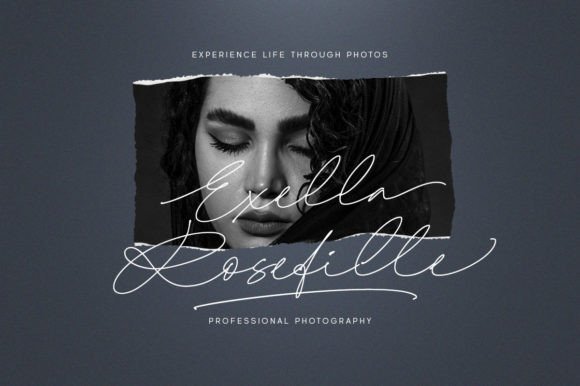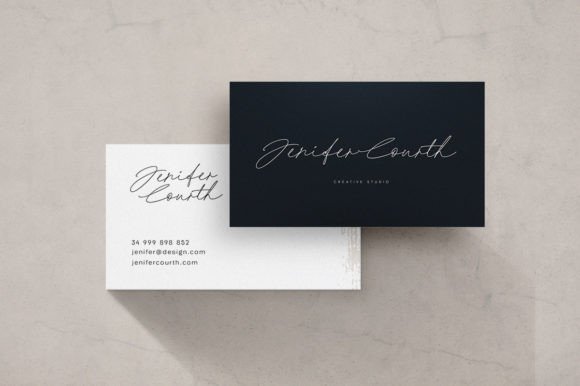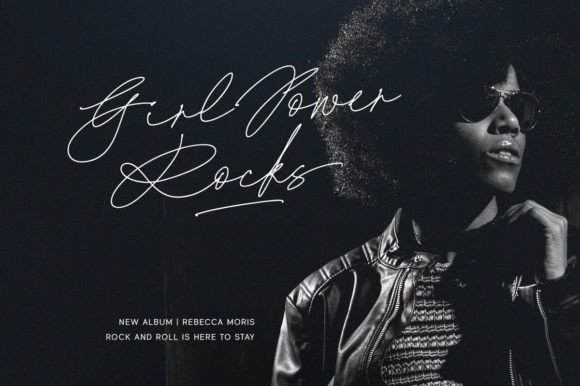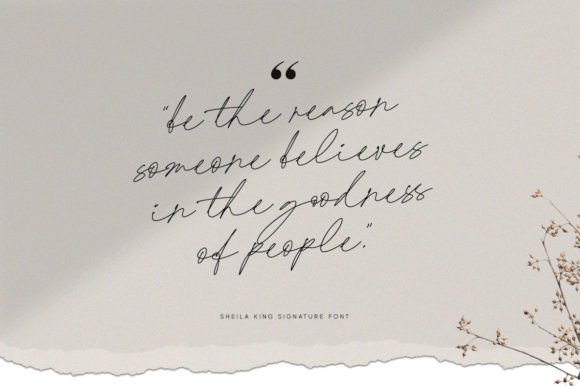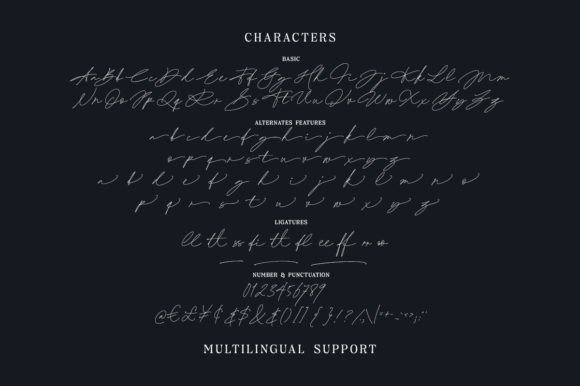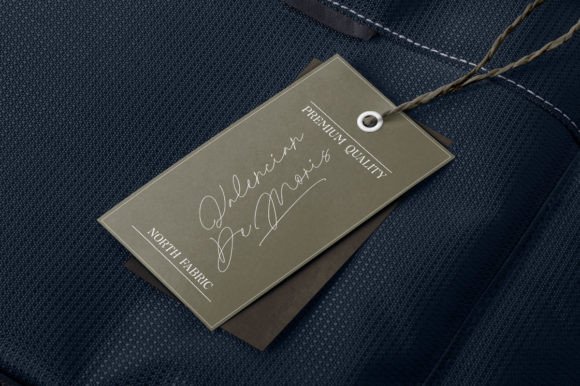
Introduction to Sheila King Font
Have you ever been working on a creative project, pouring your heart and soul into it, and just as you’re about to add the finishing touches, you’re stuck on finding the perfect font? It’s that moment of frustration and excitement that led me to discover the stunning Sheila King Font. With its elegant and delicate script, this font has the power to elevate any design, adding a touch of sophistication and class.
As a valuable resource for designers, the Sheila King Font is a high-quality, free download that’s perfect for any creative project. Its clean, thin, and smooth vibe makes it an ideal choice for designs that require a sense of refinement and poise. Plus, with a transparent background, you can easily layer it over your designs without worrying about any unwanted elements.
Key Features of Sheila King Font
- Unique characteristics: elegant, cursive, and handwritten style, making it suitable for invitations, greeting cards, and other creative projects.
Honest Review: Sheila King Font
I recently stumbled upon the Sheila King Font and was excited to give it a try for my latest creative project. I was blown away by the high quality of this font, perfect for making my design stand out. One of the standout features of this font is its ability to work well with transparent backgrounds, giving it a unique and eye-catching effect.
However, I did notice a few limitations. The font may not be suitable for all types of projects, and the lack of a bold weight can be a bit restrictive at times.
Overall, I’m impressed with the Sheila King Font and would definitely recommend it to designers looking for a unique and high-quality design resource. While it may have some limitations, its strengths far outweigh its weaknesses, making it a valuable addition to any design library.
The Sheila King Font is a high-quality design resource that offers a unique and creative touch to any project. It’s available for free download, making it an excellent choice for designers and artists on a budget. One of its key features is the transparent background, which allows for seamless integration with other design elements.
To get the most out of the Sheila King Font, use it in combination with other design elements, such as images or graphics. Experiment with different font sizes, colors, and styles to create a unique look. You can also use the font in conjunction with other design resources, such as templates or stock photos.
The Sheila King Font is ideal for a variety of creative projects, including:
- Posters and flyers for events or promotions
- Logos and branding materials for businesses
- Social media graphics and advertising
- Presentations and reports for work or school